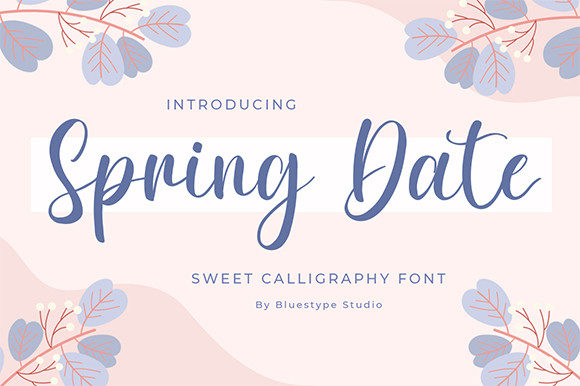
Discover Spring Date Font, the Exquisite Touch of Elegance for Your Designs
Journey into a world of visual allure with Spring Date, a graceful, flowing, and sweet script font that exudes charm and sophistication. Its delicate strokes and elegant curves lend an air of timeless beauty to any project, making it the perfect choice for those seeking a touch of class and originality.
With its effortless flow and striking presence, Spring Date is the ideal font for crafting stunning wedding invitations, heartwarming thank-you cards, inspiring quotes, and heartfelt greeting cards. It adds a touch of magic to logos, business cards, and any other design that craves a personalized touch.
Step into the realm of creativity and let Spring Date be your guiding light. Its versatility shines through in its ability to elevate photography logos, transforming them into artistic masterpieces that capture the essence of your brand. Its timeless appeal ensures that your designs will stand the test of time, leaving a lasting impression on your audience.
Embrace the beauty of Spring Date and unleash your creative potential. Dive into a world where elegance and charm intertwine, where every letter tells a story and every word captivates the senses. Let Spring Date be your creative muse, guiding you towards designs that resonate with your audience and leave them spellbound.